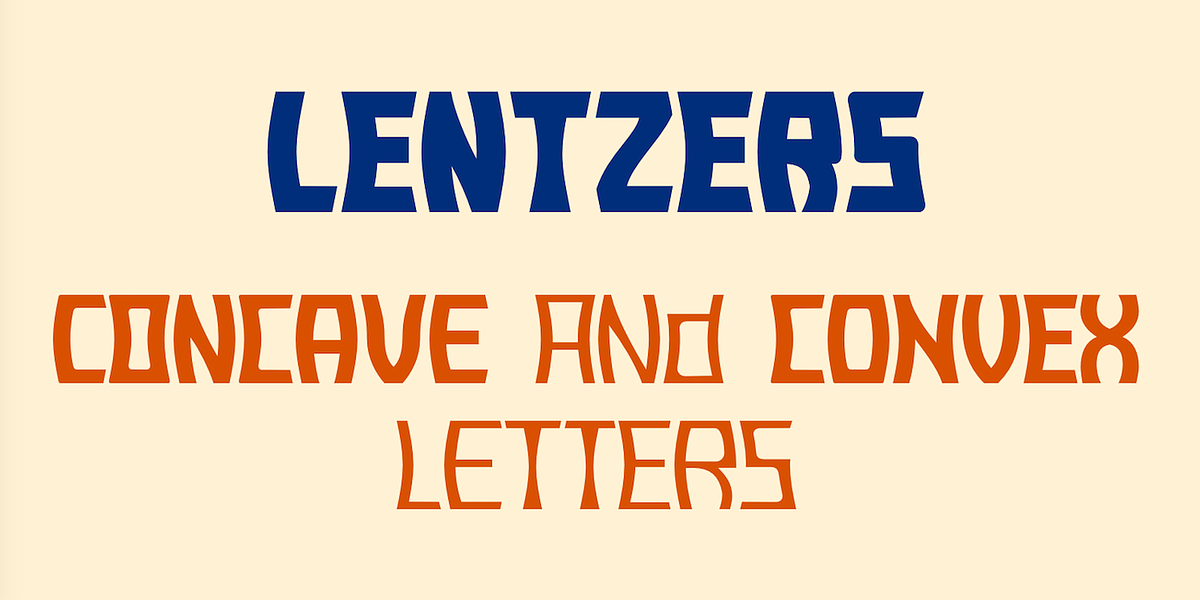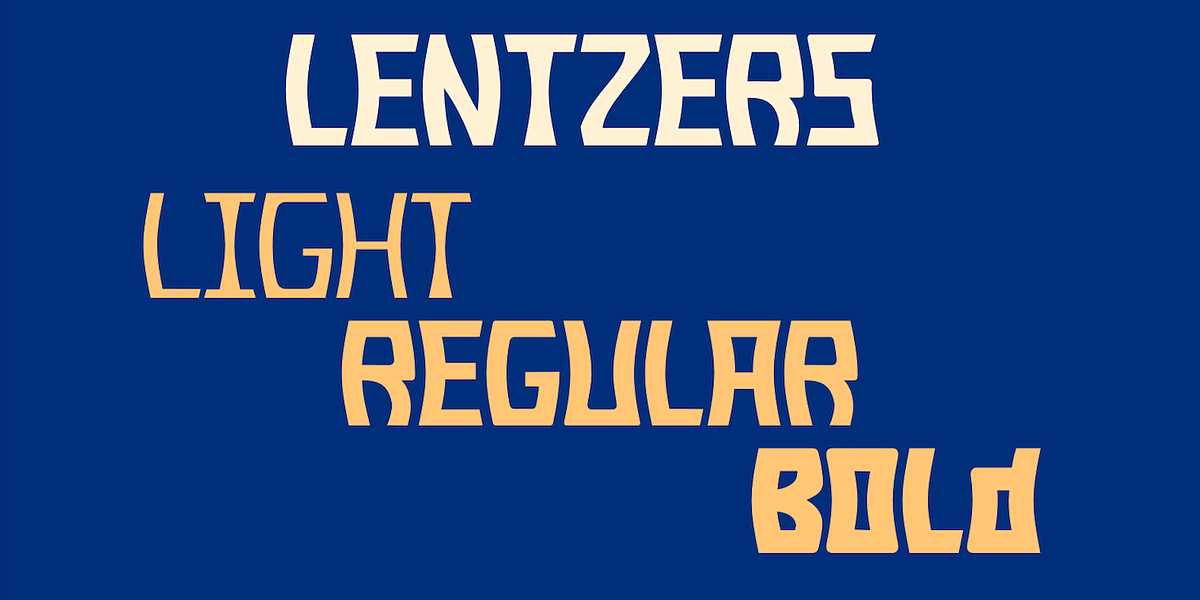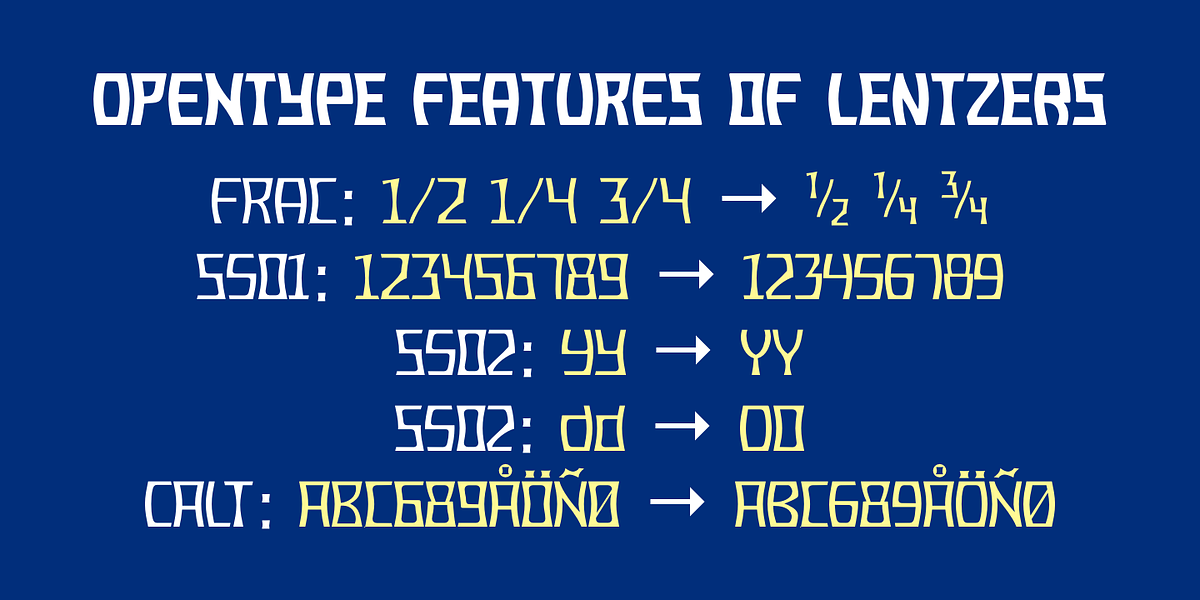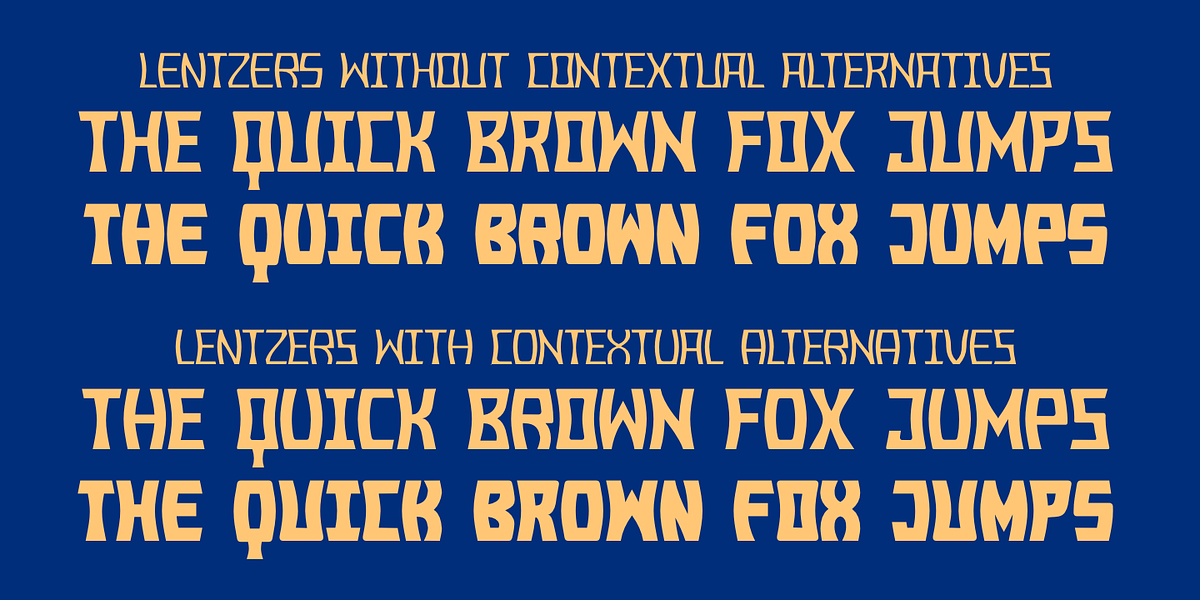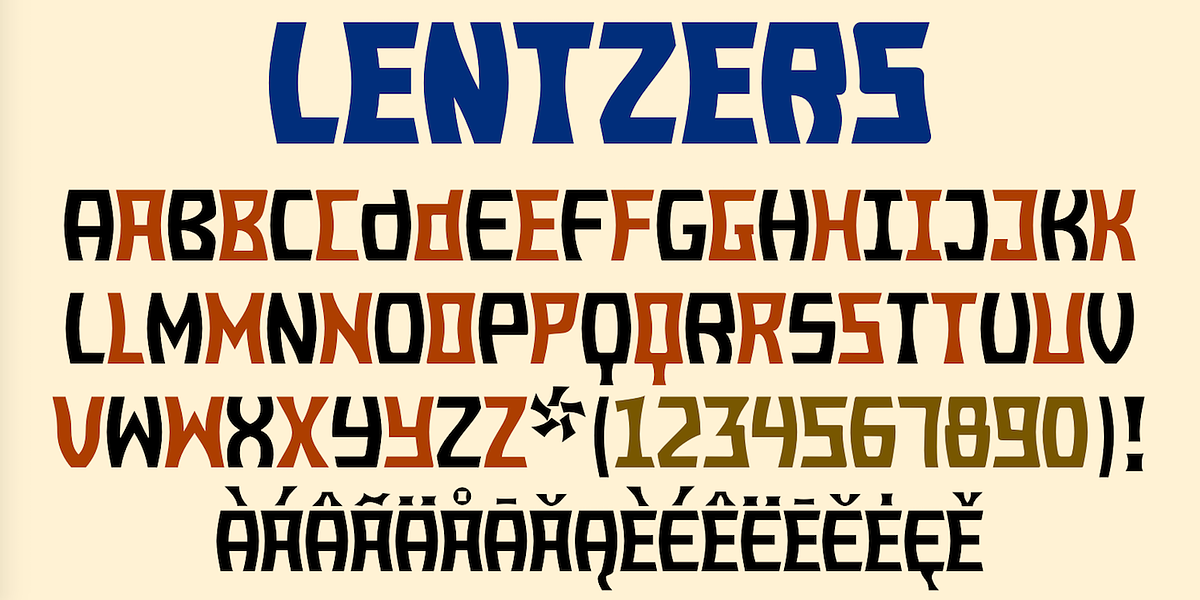
Lentzers
Lentzers is a distinctive display typeface characterized by its unique lens-shaped letterforms. Uppercase letters alternate between convex and concave shapes, creating an interlocking effect that adds visual interest. The font comes in three weights (light, regular, and bold) and is well-suited for applications such as posters and titles where a striking visual impact is desired.